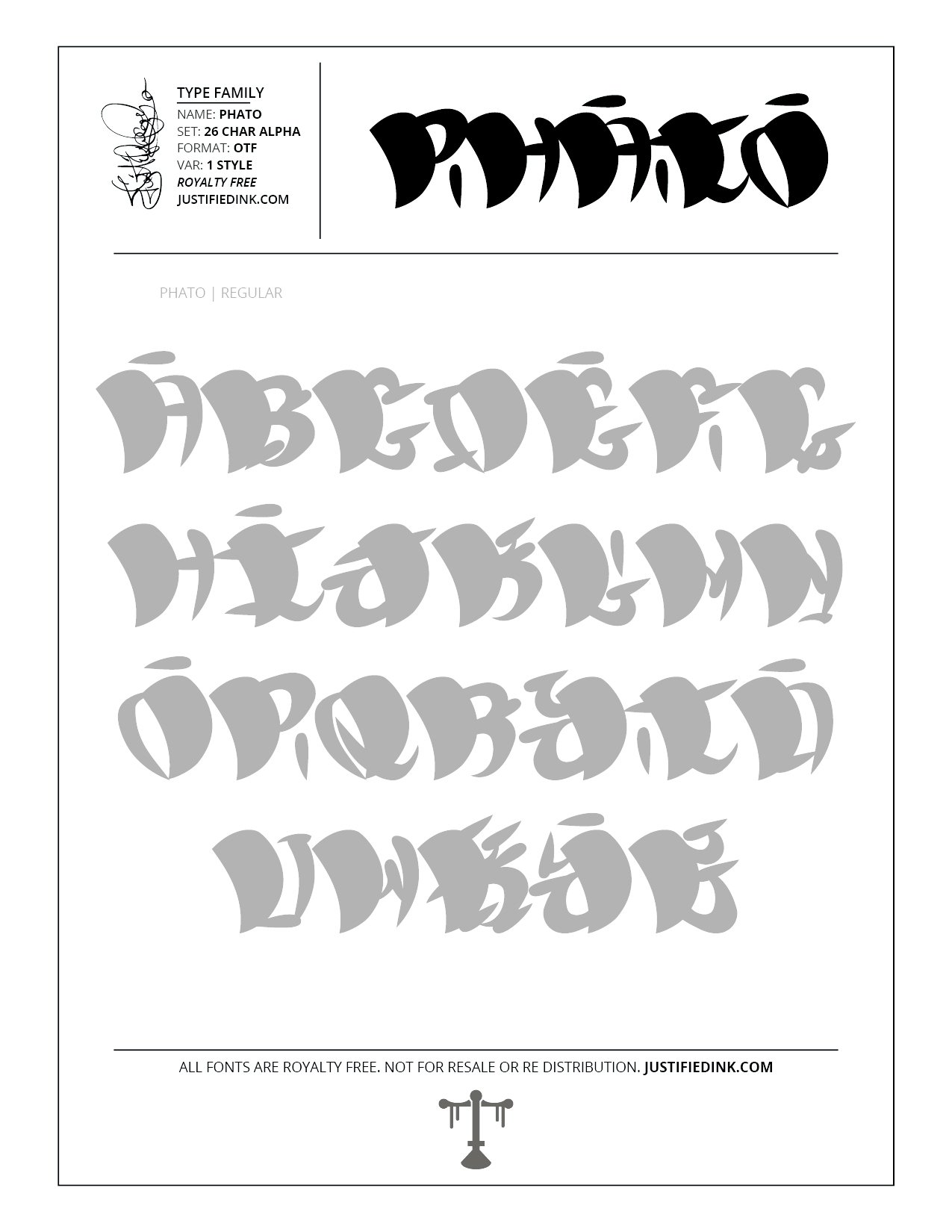
Phato (1 style) - Custom Font by Justified Ink
Livin' Phat is dedicated to going as large as possible. Phato is the embodiment of that. Using the maximum size and contrast from the brush to get everything in between.
This font is part of the collection by Justified Ink, called Blackletter II. After 15+ years creating, I began to focus on building personal libraries of my work. The Blackletter II Collection was created through writing page after page, and countless hours over a 2 year span of daily practice. Each font from this collection has been hand drawn, manually vectored, and custom set as a type-able font. It comes in a full set of 26 char alpha. Each font family has variations in styles and/or non-alpha chars.